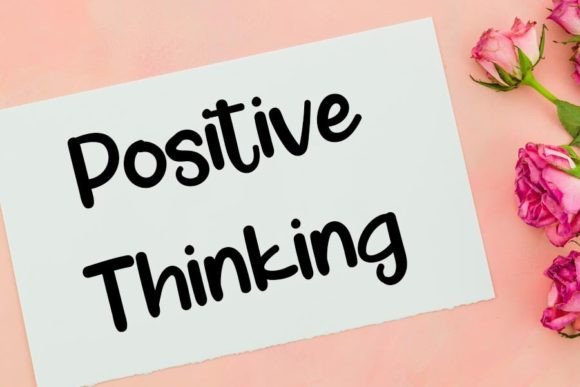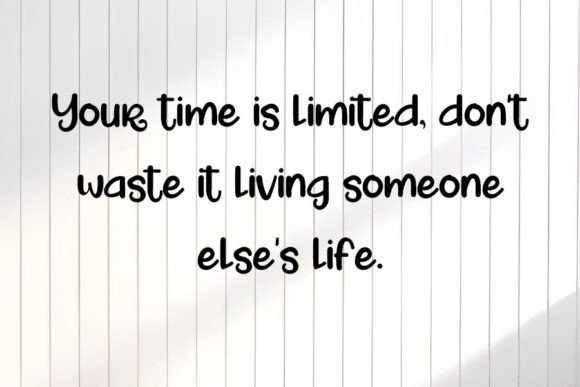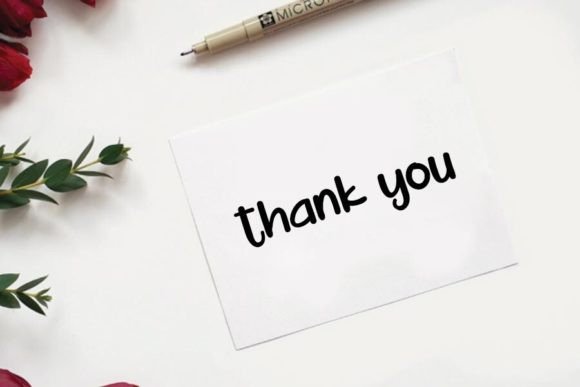
The Catch: Unleashing the Potential of Fishing Font
I’ll never forget the design project that led me to discover the Fishing Font. I was working on a branding campaign for a local outdoor gear store, and I was determined to create a logo that would stand out. But, as I scrolled through font after font, nothing seemed quite right. That was until I stumbled upon Fishing Font – a handwritten gem that instantly resonated with the store’s laid-back, adventurous vibe.
Fishing Font has quickly become a favorite in my design arsenal, and for good reason. Here are a few things I love about it:
- ✨ Unique, hand-crafted feel that’s perfect for branding and advertising projects
- 💡 Extensive character set, including OpenType features and glyphs
Of course, no font is perfect, and Fishing Font does have a few quirks:
- 🤔 Some users may find the font a bit too casual for certain projects
- ⚠️ Limited availability of stylistic alternates (but still plenty to work with!)
The Story Behind Fishing Font
Fishing Font was designed by a talented type designer who wanted to create a font that captured the carefree spirit of a summer day by the lake. With its unique blend of elegance and playfulness, Fishing Font is the perfect choice for designers looking to add a touch of whimsy to their projects.
| Font Name | Fishing Font |
| Author | Leontyn Art |
| What makes Fishing Font so unique? | Fishing Font’s unique blend of elegance and playfulness makes it stand out from other fonts. |
| Is Fishing Font available in multiple languages? | Yes, Fishing Font supports multiple languages, including English, Spanish, French, and more. |